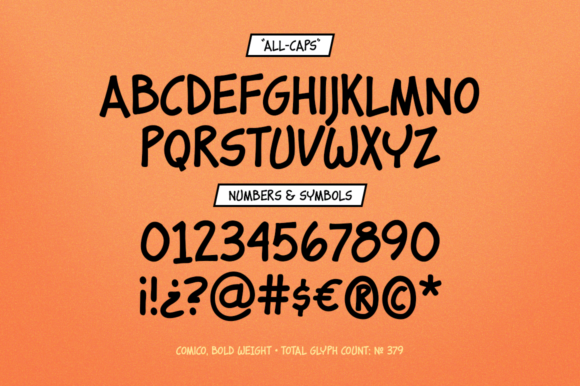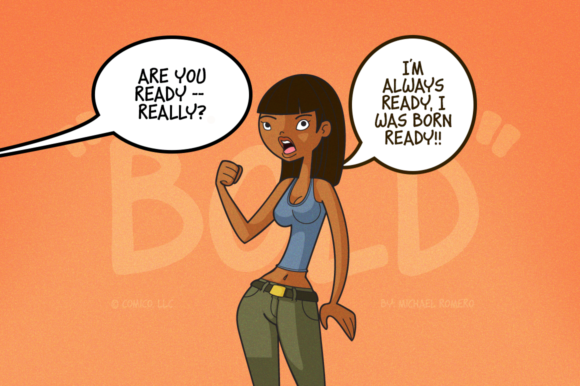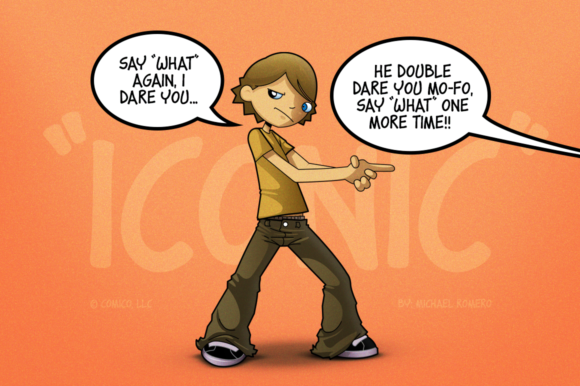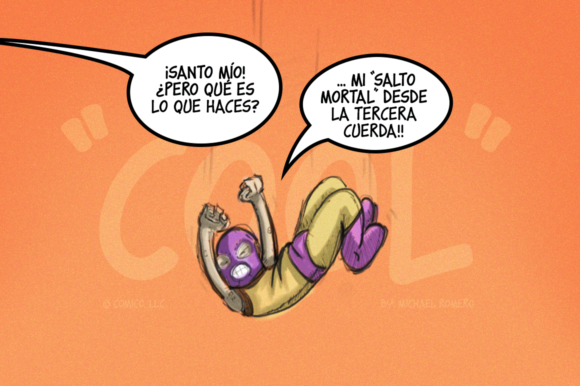
Introducing Comico Font: The Perfect Handwritten Style for Chalkboard Quotes and Teaching Materials
Are you a designer, teacher, or crafter looking for a font that can add a personal touch to your chalkboard quotes, teaching materials, or craft projects? Look no further than Comico Font! This simple yet authentic handwritten font is designed to mimic the look and feel of traditional chalkboard writing, making it perfect for a variety of creative applications.
What is Comico Font?
Comico Font is a carefully crafted handwritten font that boasts a charming, authentic look and feel. Its simplicity and elegance make it an ideal choice for designers, teachers, and crafters who want to add a personal touch to their work. Whether you’re creating chalkboard quotes, teaching materials, or craft projects, Comico Font is the perfect choice.
Key Features of Comico Font
- Authentic Handwritten Style: Comico Font features a genuine handwritten style that is reminiscent of traditional chalkboard writing.
- Simple and Elegant: The font’s simplicity and elegance make it easy to read and versatile enough to use in a variety of creative applications.
- Chalkboard-Inspired: Comico Font is specifically designed to mimic the look and feel of chalkboard writing, making it perfect for chalkboard quotes and teaching materials.
Uses for Comico Font
Comico Font is a versatile font that can be used in a variety of creative applications, including:
- Chalkboard Quotes: Add a personal touch to your chalkboard quotes with Comico Font’s authentic handwritten style.
- Teaching Materials: Use Comico Font to create engaging and interactive teaching materials that will captivate your students.
- Craft Projects: Add a touch of elegance and sophistication to your craft projects with Comico Font.
- Signage: Use Comico Font to create eye-catching signage for your business or event.
Benefits of Using Comico Font
There are many benefits to using Comico Font in your designs, including:
- Unique and Authentic Look: Comico Font’s authentic handwritten style will add a unique and personal touch to your designs.
- Easily Readable: The font’s simplicity and elegance make it easy to read, even from a distance.
- Versatile: Comico Font can be used in a variety of creative applications, from chalkboard quotes to craft projects.
- Time-Saving: With Comico Font, you can create professional-looking designs in a fraction of the time.
Tips for Using Comico Font
Here are a few tips for getting the most out of Comico Font:
- Experiment with Colors: Comico Font looks great in a variety of colors, so don’t be afraid to experiment and find the perfect hue for your design.
- Mix and Match Fonts: Combine Comico Font with other fonts to create a unique and visually appealing design.
- Use it for Headlines and Titles: Comico Font is perfect for headlines and titles, where its authentic handwritten style can really shine.
Comico Font is a simple yet powerful font that can add a personal touch to your chalkboard quotes, teaching materials, and craft projects. Its authentic handwritten style and versatility make it an ideal choice for designers, teachers, and crafters. With Comico Font, you can create professional-looking designs in a fraction of the time, so why wait? Download Comico Font today and start creating!